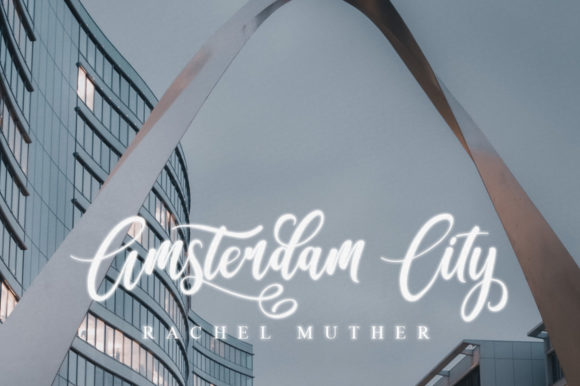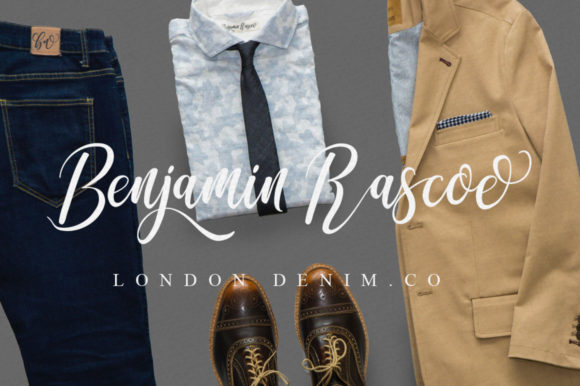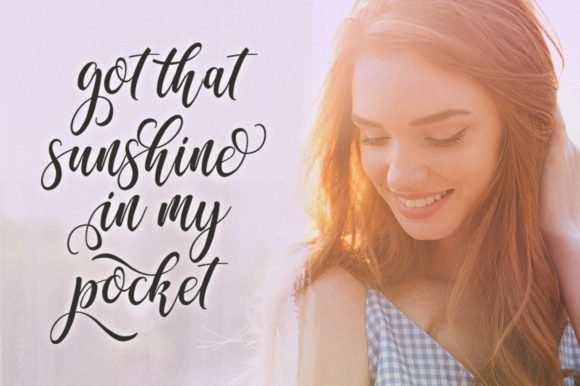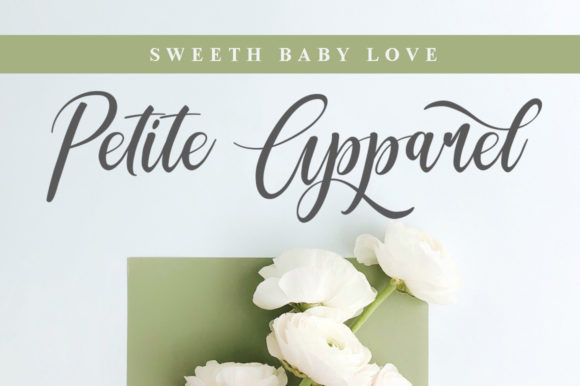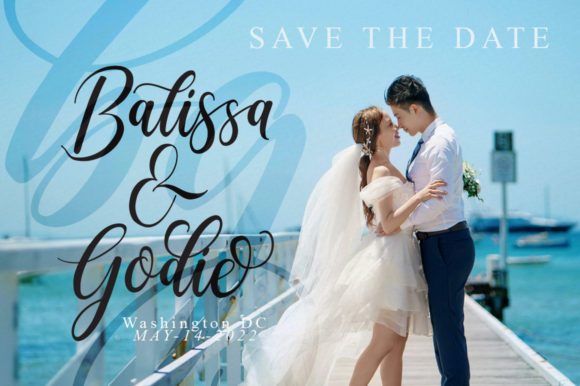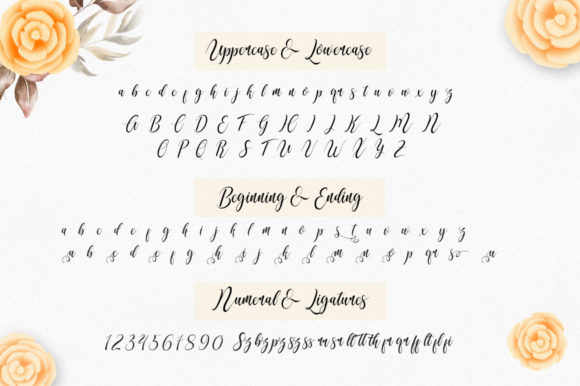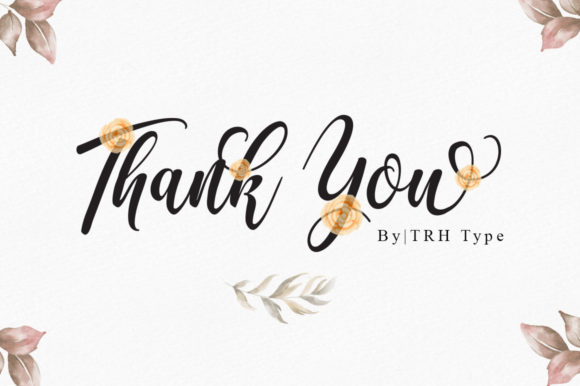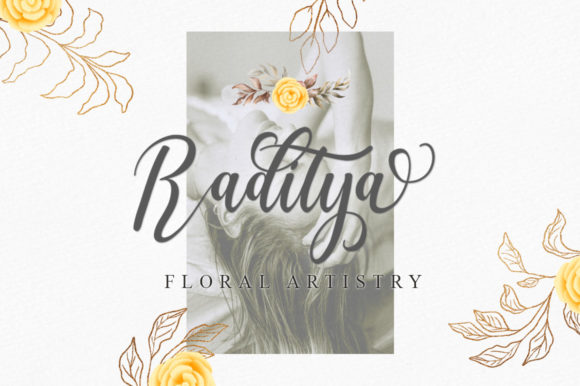
Gasqilla Script Font
About Gasqilla Script Font
Gasqilla Script is a captivating and versatile handwritten font that adds a touch of enchantment to various design projects. Its unique and charming style makes it suitable for a wide range of applications, from delicate greeting cards to impactful headlines. With its PUA encoding, you have easy access to a variety of glyphs and swashes, allowing you to customize your designs with ease and creativity.
For greeting cards, Gasqilla Script brings a sense of warmth and personality to your messages, making them more heartfelt and memorable. Whether it’s for birthdays, holidays, or special occasions, the font’s enchanting strokes add a touch of magic that resonates with recipients.
In headlines, Gasqilla Script creates a captivating focal point that draws attention and conveys your message with style. Its versatility ensures that your headlines stand out in a variety of contexts, from editorial designs to digital platforms.
With its PUA encoding, Gasqilla Script offers a wealth of customization options. You can easily access alternate characters, ligatures, and swashes to add flair and uniqueness to your designs. This feature is particularly valuable for creating personalized logos, branding elements, and artistic typographic compositions.
The font’s handwritten charm also makes it ideal for crafting social media graphics. Whether you’re sharing quotes, announcements, or promotional content, Gasqilla Script’s enchanting appearance adds a touch of elegance and creativity to your posts.
In summary, Gasqilla Script is an enchanting handwritten font with a versatile range of applications. Its ability to evoke warmth, magic, and personality makes it suitable for greeting cards, headlines, logos, branding, social media, and more. The included PUA encoding allows you to explore various design possibilities and customize your creations with ease.